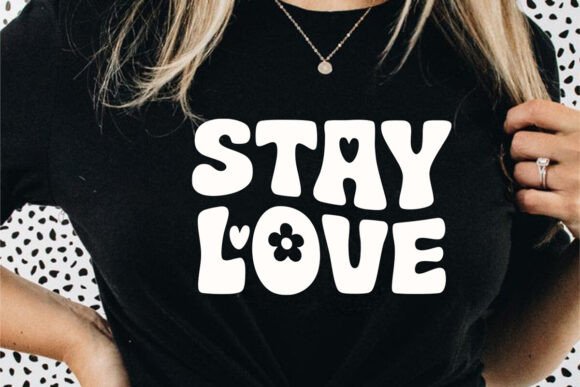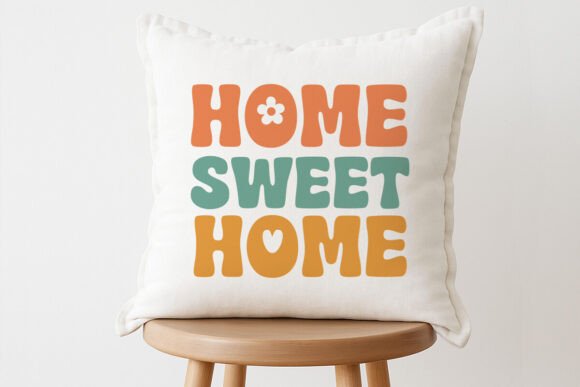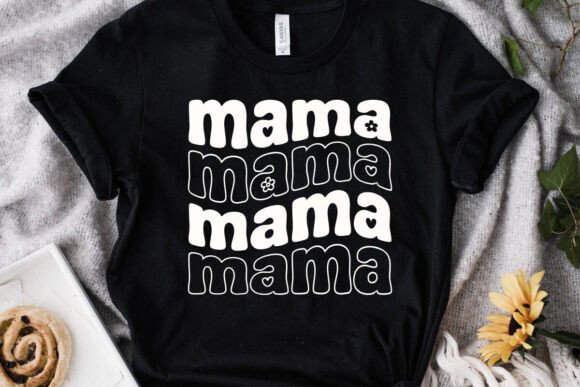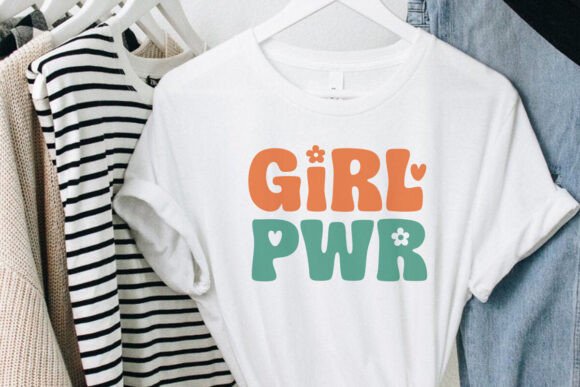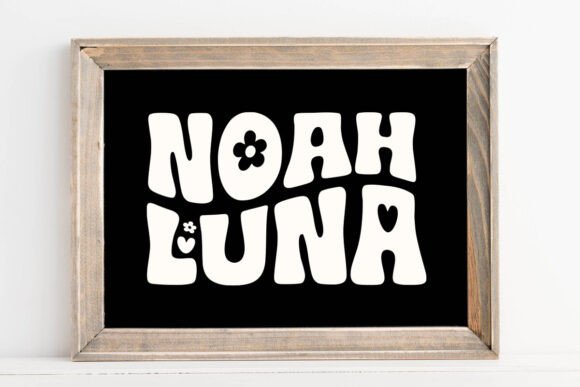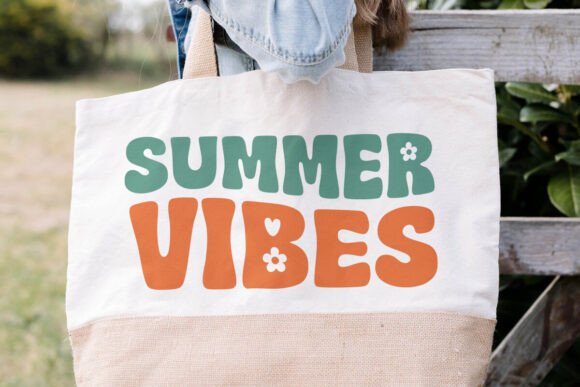
Introduction to Rtro Club Font
Remember that moment when you stumbled upon the perfect design element that made your project come alive? For designers, those moments are what make the creative process truly magical. Whether you’re working on a digital design project or crafting a handmade gift, finding the right font can be the difference between a good design and a great one.
Enter the Rtro Club Font, a groovy and fun 70s display font that’s sure to add a touch of personality to any design project. With its bohemian vibe and high-quality design, this font is the perfect resource for designers looking to add a unique touch to their work. And the best part? It’s available for free download, making it an accessible design resource for creatives of all levels.
Key Features of Rtro Club Font
- High-quality design resource for creative projects: Rtro Club Font offers a unique and stylish typography that can elevate any design.
- Transparent background: The font has a transparent background, allowing for easy integration with any design or image, making it a versatile design resource.
- Perfect for digital and print designs: With its high-resolution design, Rtro Club Font is suitable for both digital and print designs, including logos, posters, and social media graphics.
- Unique and creative style: Rtro Club Font features a unique and creative style that can add a touch of personality to any design, making it an excellent choice for designers looking to stand out.
- Easy to use: With its simple and intuitive design, Rtro Club Font is easy to use and can be integrated into any design project with ease.
Honest Review: Rtro Club Font
As a designer, I’m always on the lookout for high-quality design resources to elevate my creative projects. The Rtro Club Font is one such resource that caught my attention. This font has a unique retro vibe that’s perfect for projects that require a nostalgic feel.
Here are some of the things that work well with the Rtro Club Font:
- Unique and eye-catching design that’s sure to grab attention
- Perfect for creative projects that require a retro aesthetic
- High-quality design that looks great on both light and dark backgrounds
- Only available in a limited number of font styles
- No transparent background option, which may limit its use in certain design projects
Overall, I’m impressed with the Rtro Club Font’s unique design and high-quality appearance. While it may have some limitations, it’s an excellent resource for designers looking for a retro aesthetic. With a little creativity, you can use this font to create some truly amazing design projects. ✨
To get the most out of the Rtro Club Font, experiment with different font sizes, colors, and combinations to create unique and visually appealing designs.
The Rtro Club Font is perfect for creative projects such as:
- Poster design